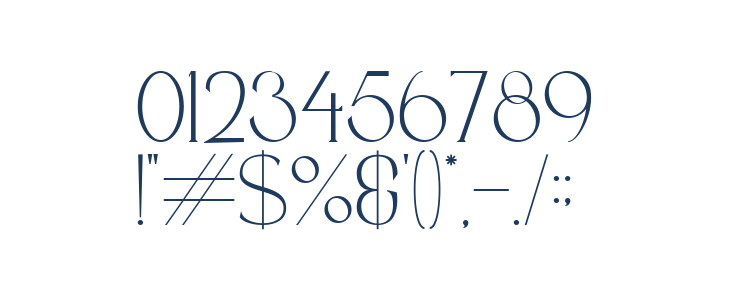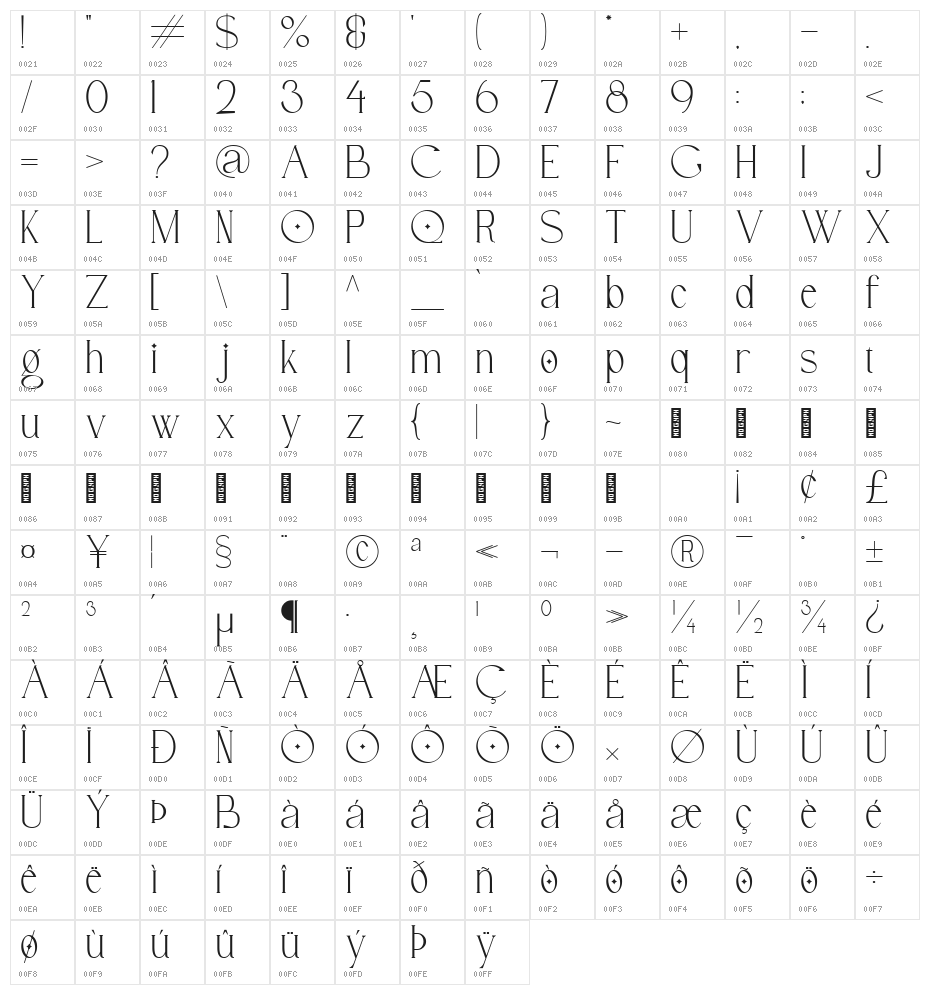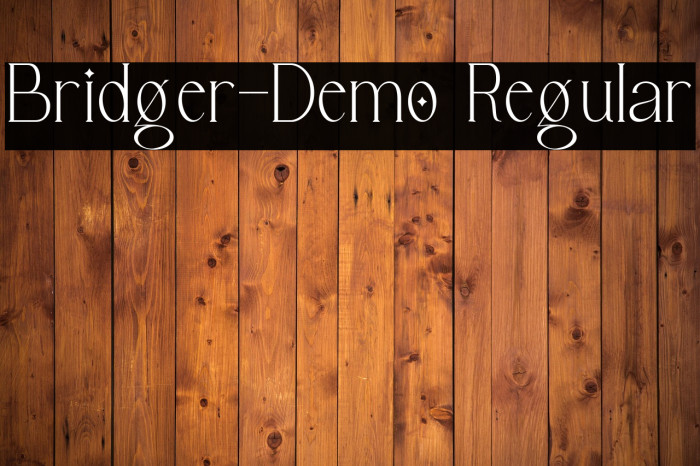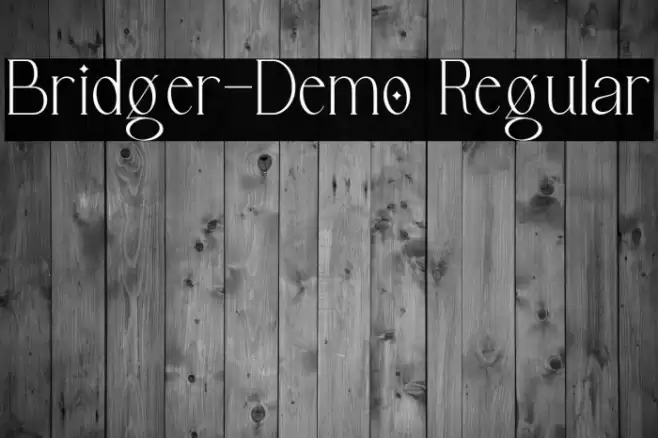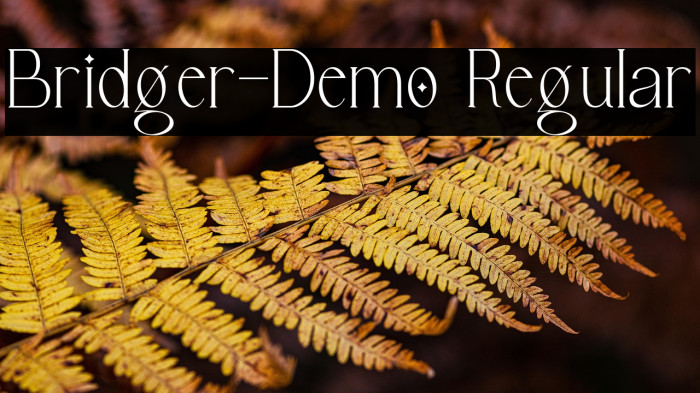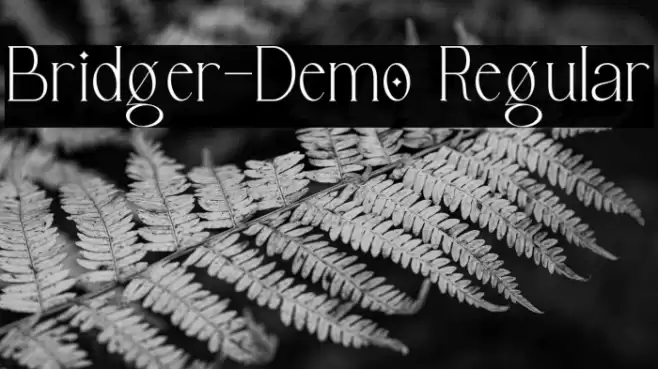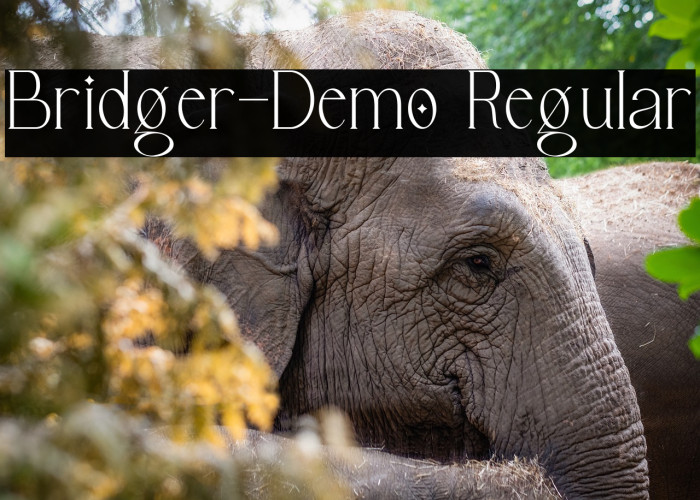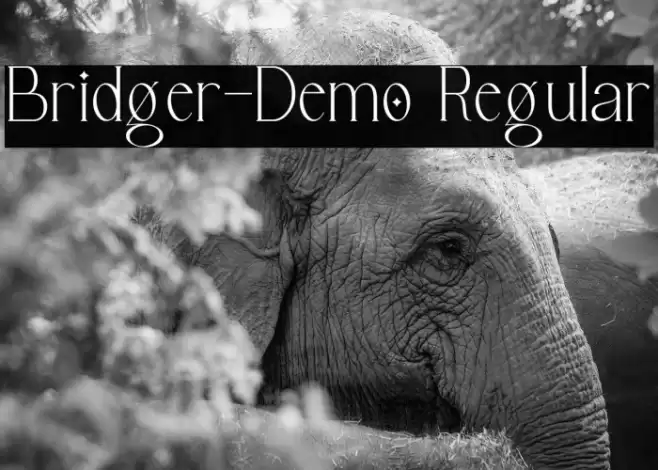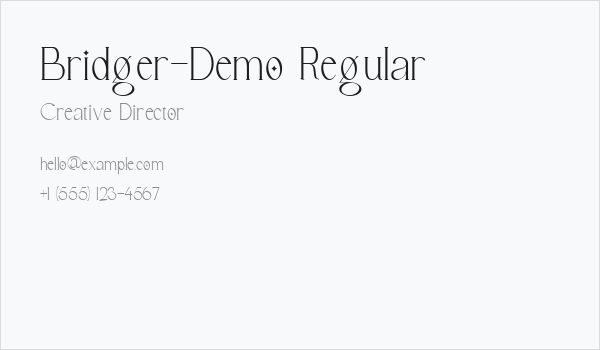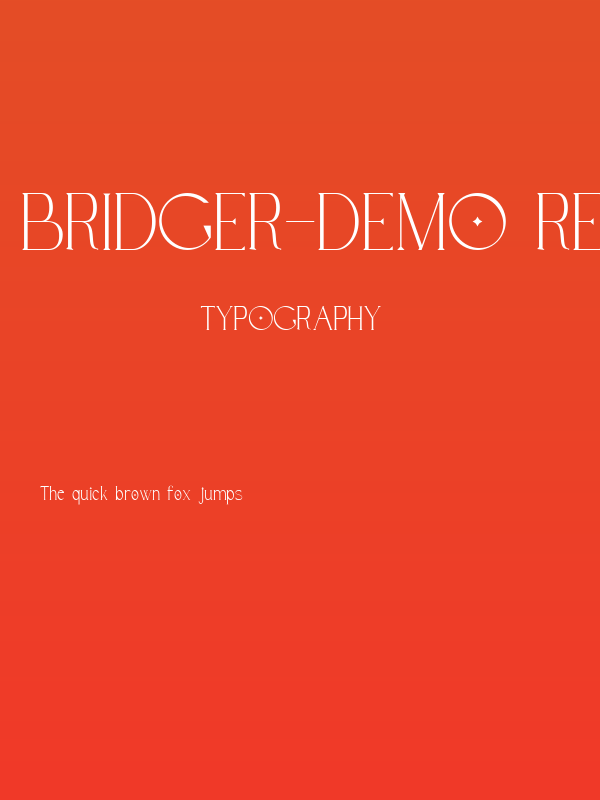
Bridger-Demo Regular Font
Bridger-Demo Regular Description
This font features a unique blend of modern and classic elements, characterized by its elegant and slender letterforms. The uppercase letters are tall and narrow, with distinct geometric shapes and subtle serifs that add a touch of sophistication. The lowercase letters maintain a consistent style, with some characters like 'g' and 'q' showcasing a more decorative flair. The numerals are clean and legible, with a consistent stroke width that complements the overall design. Special characters are thoughtfully designed, incorporating the same geometric and decorative elements seen throughout the alphabet. This font's high contrast between thick and thin strokes enhances its readability while maintaining an artistic appeal.
| Proposed Projects | Ideal for luxury branding, editorial design, fashion magazines, and elegant invitations. |